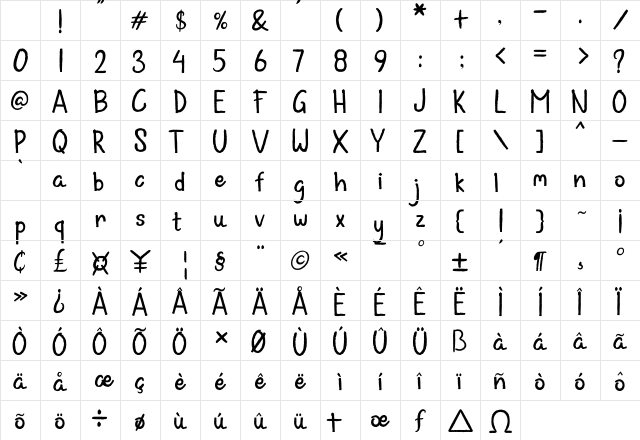
Complete diary dare Regular glyph index. Displaying only characters natively supported by diary dare Regular font.
diary dare is a composed and adaptable typeface that performs quietly and consistently across a wide range of design contexts.